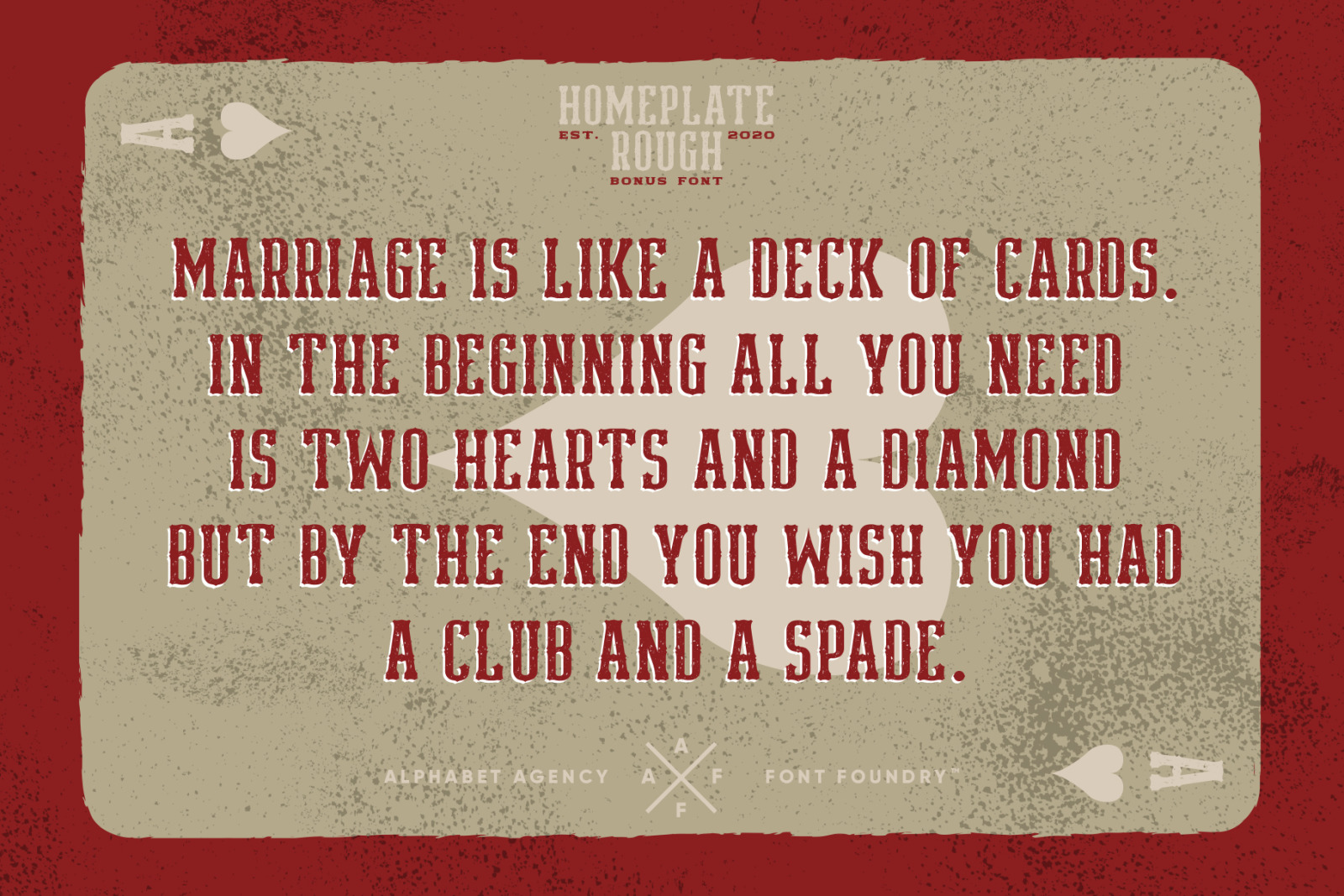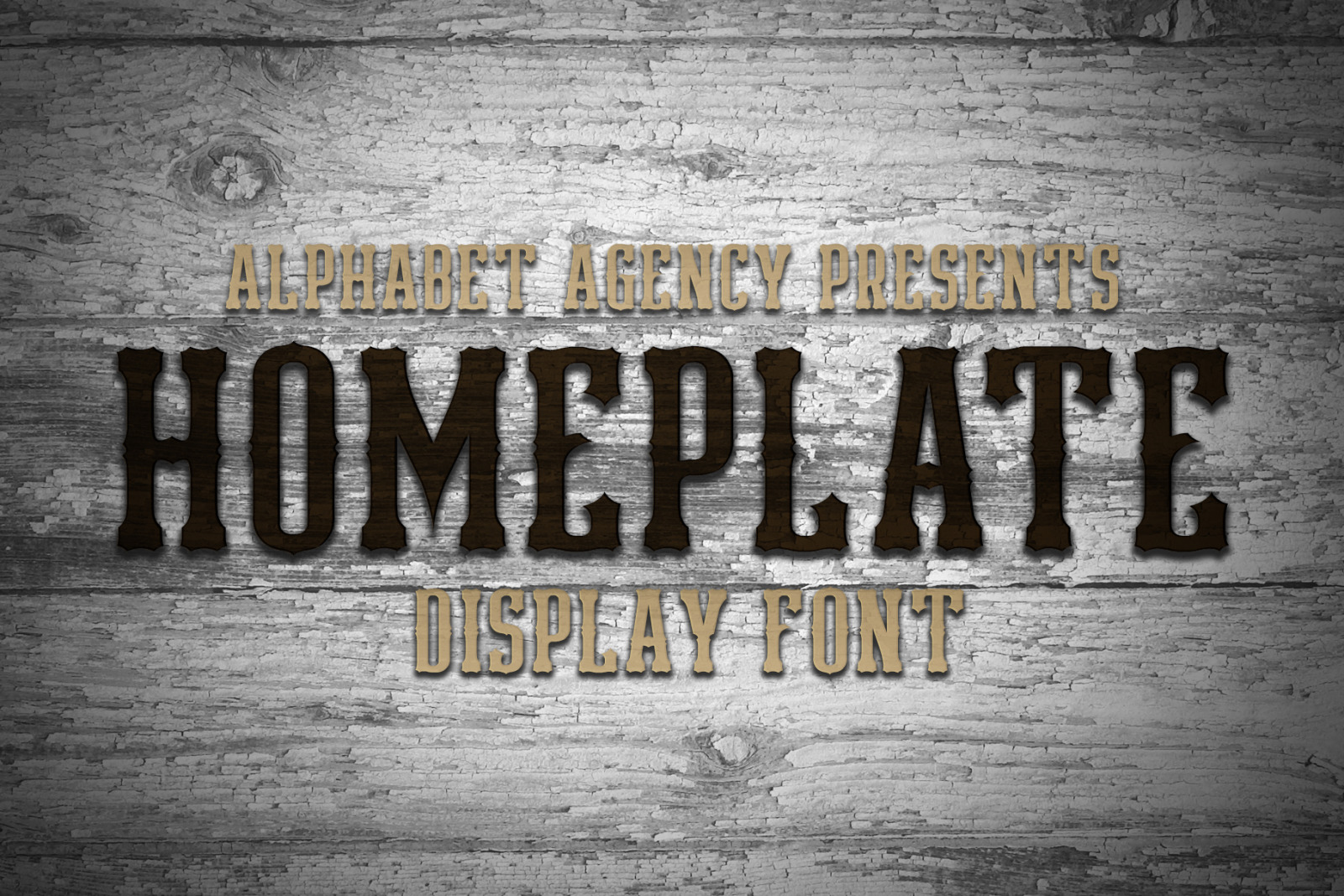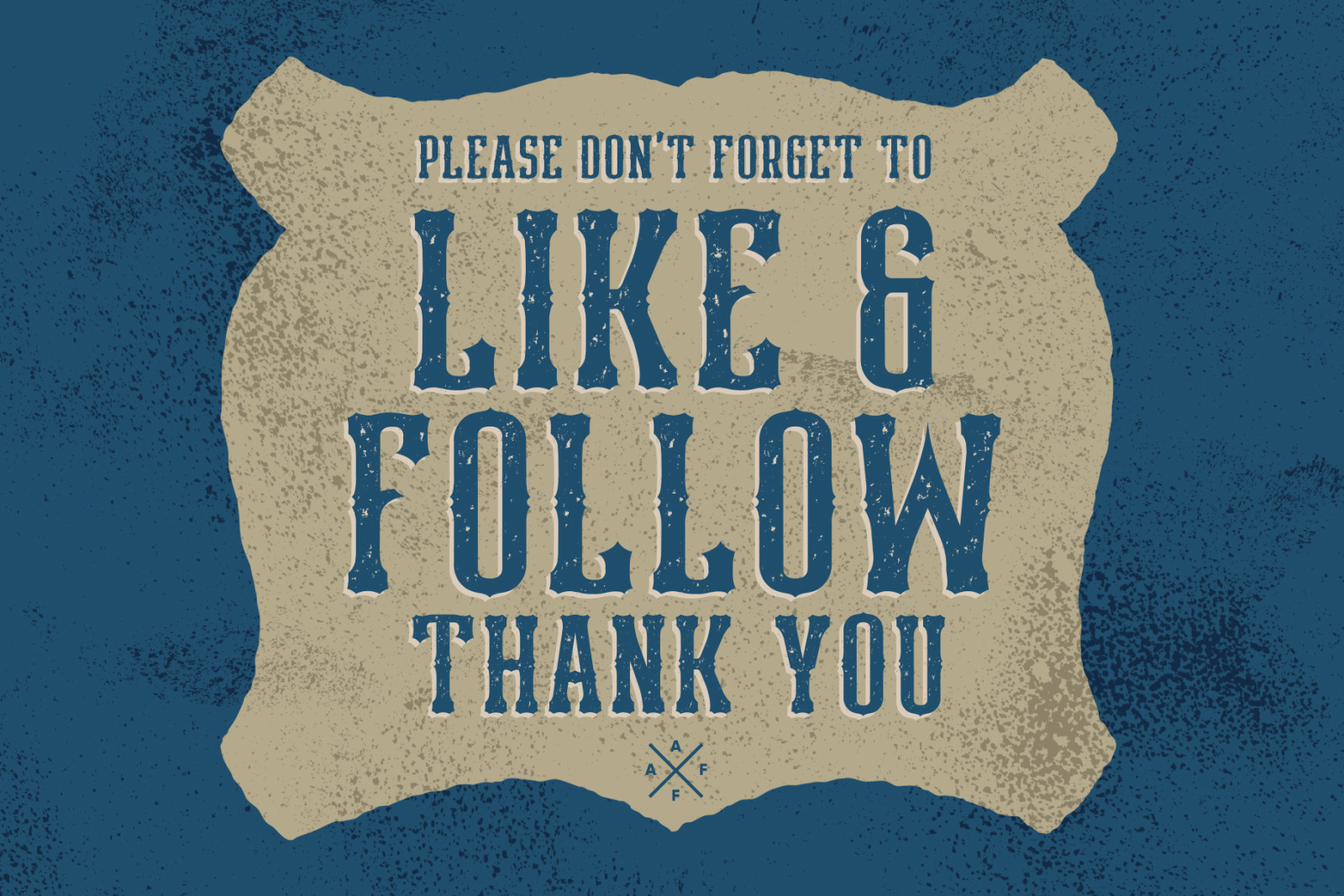
Homeplate Font Duo
Homeplate Font Duo contains Homeplate and Homeplate Rough Fonts.
The font was initially developed for use in vintage sports related designs. Due it the positive feedback, the rough version was developed as an alternative.